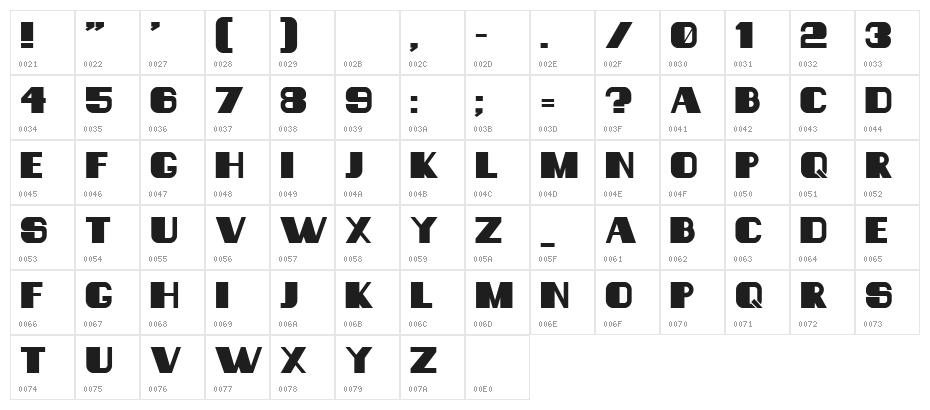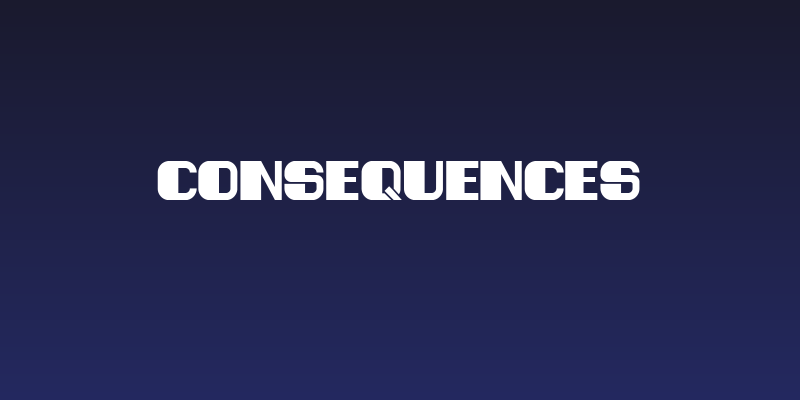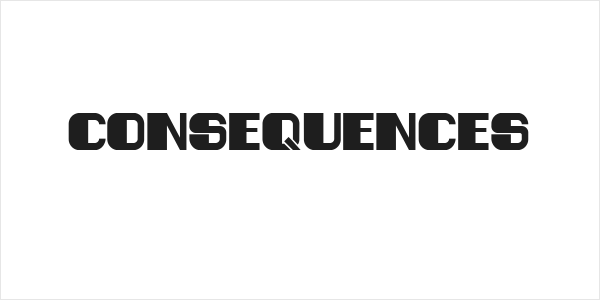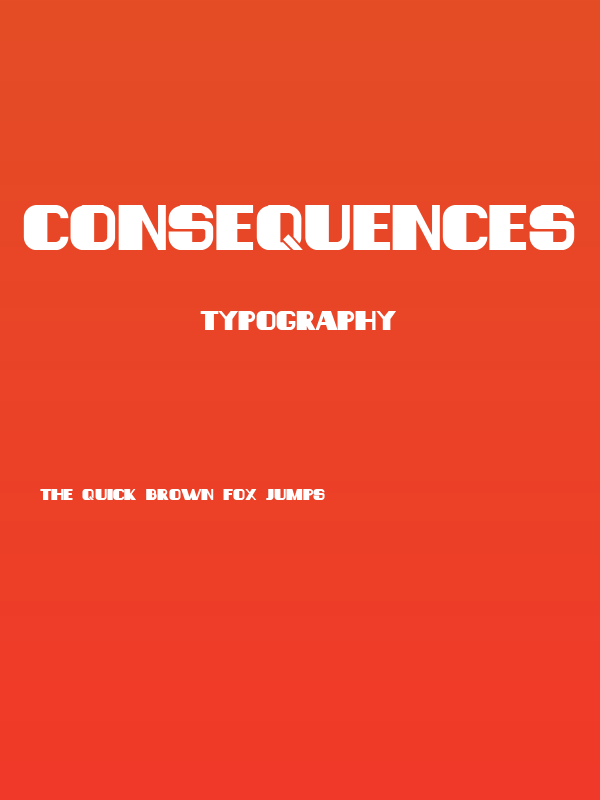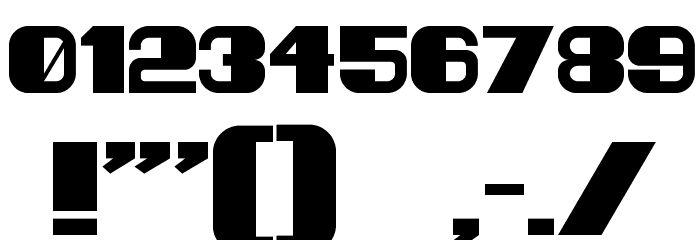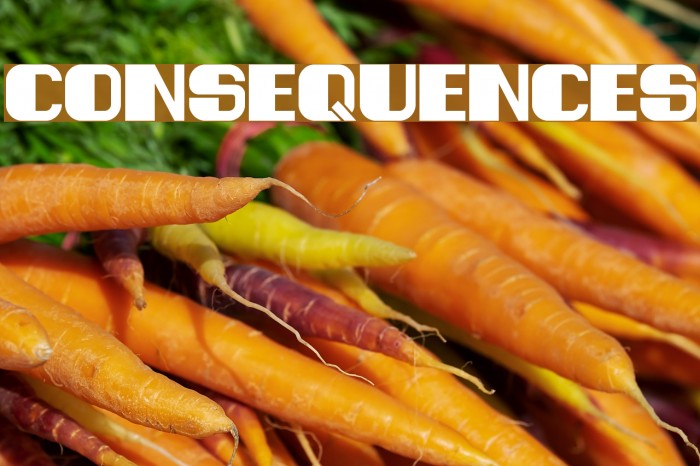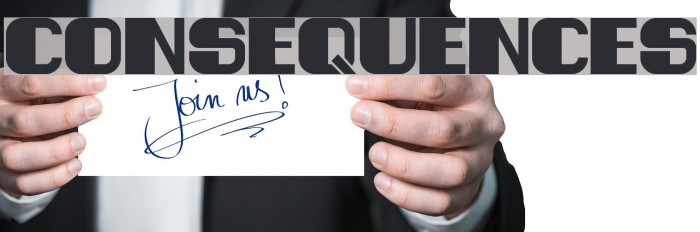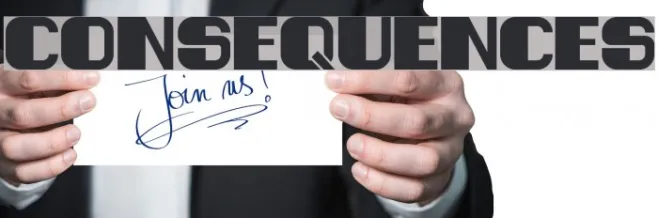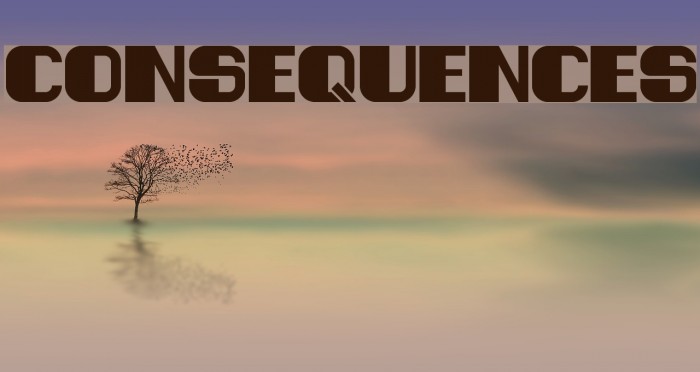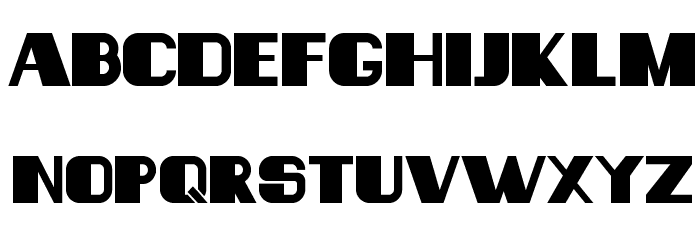
Consequences Font
Consequences Description
This font exhibits a bold and impactful design, characterized by its thick, block-like letters that convey strength and modernity. The uppercase letters are particularly striking, with a geometric and angular style that adds a sense of dynamism. The numbers and special characters maintain this robust aesthetic, ensuring consistency across all glyphs. The font's design is clean and straightforward, making it highly legible while still retaining a unique personality. Its boldness and distinctiveness make it suitable for projects that require a strong visual presence.